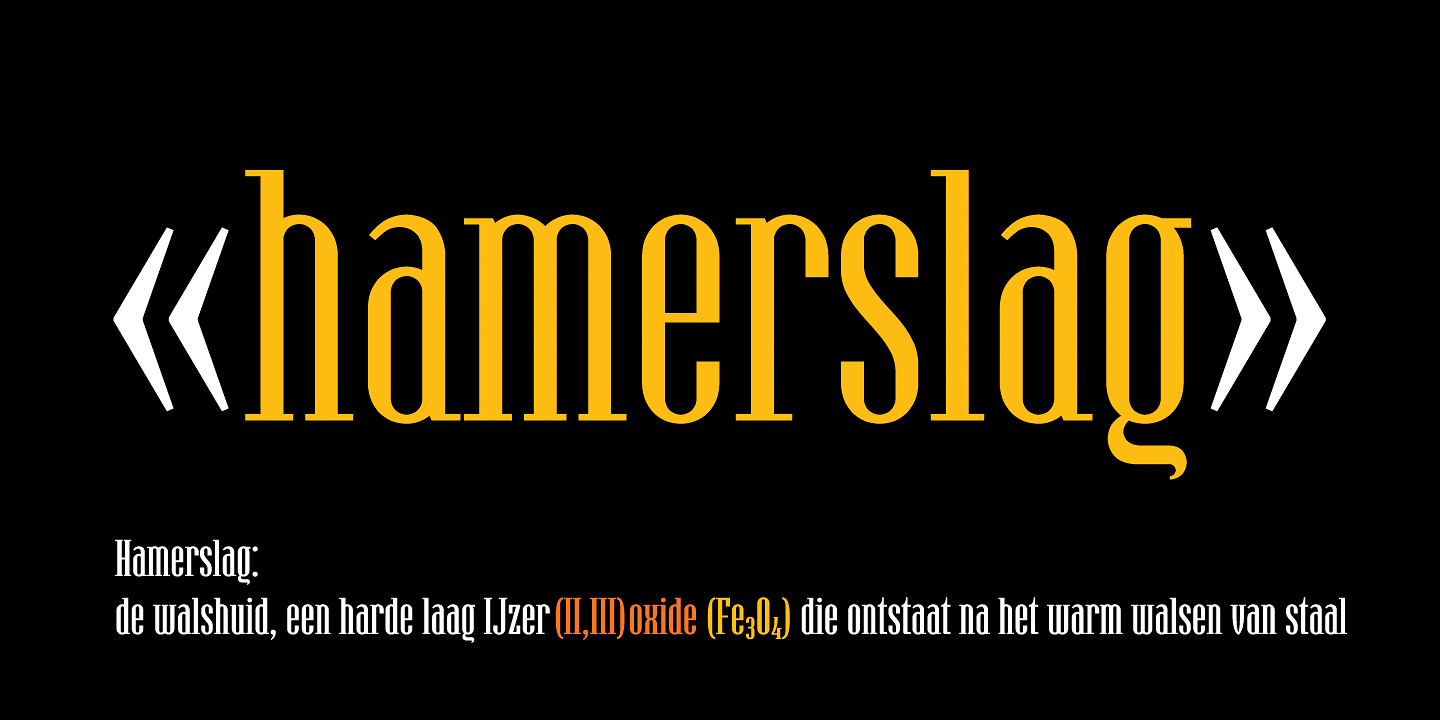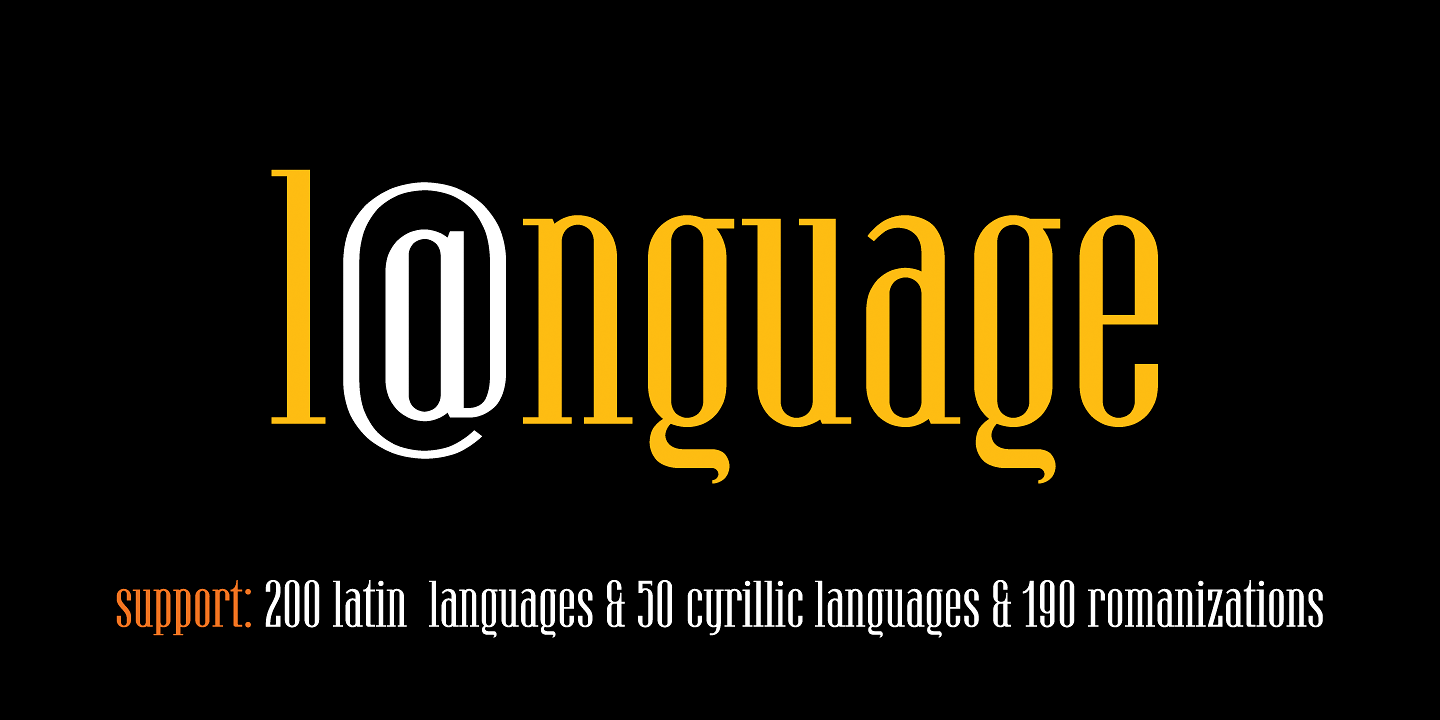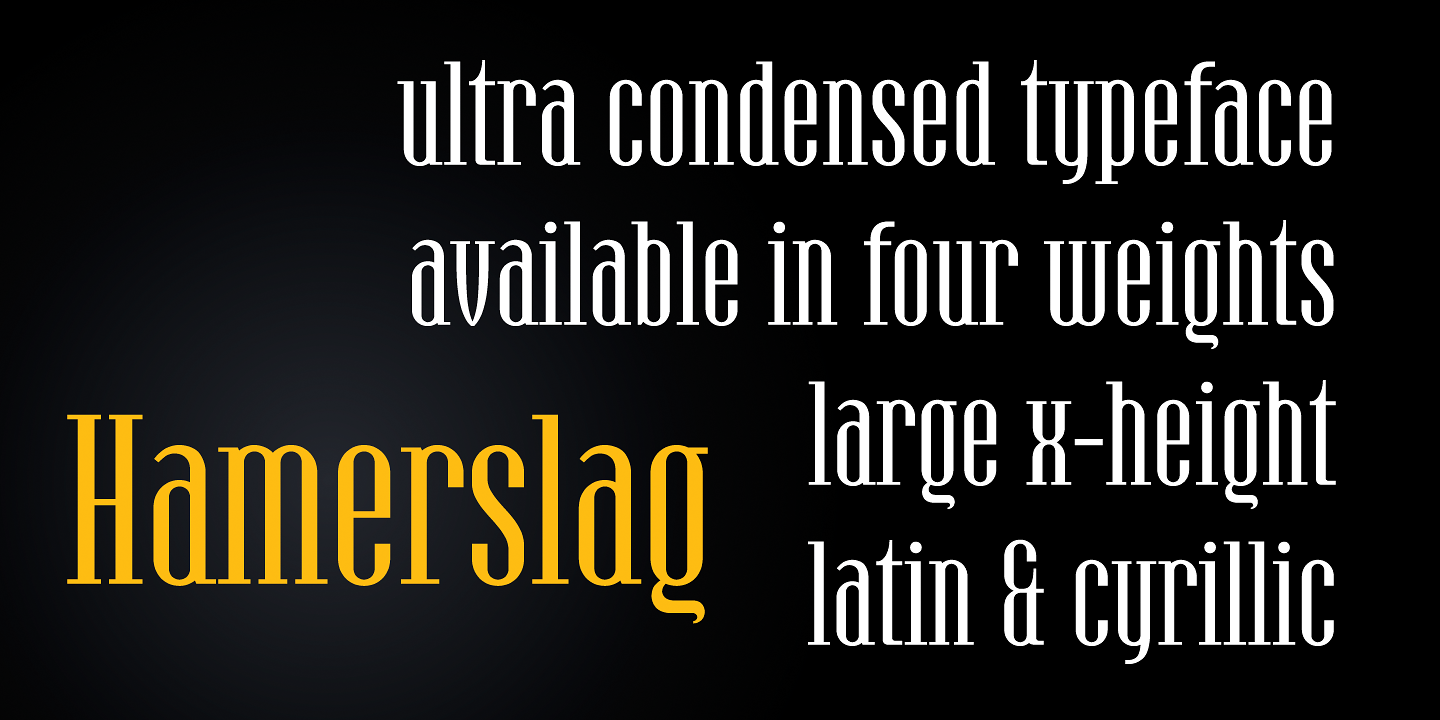
Hamerslag Typeface
Hamerslag is an ultra-condensed serif type family with uncomplicated, regular appearance, large x-height, relatively high contrast and modern glyphs shapes.
Available in four styles, contain fraction- and scientific numerals, standard ligatures, currency symbols, proportional and tabular lining figures.